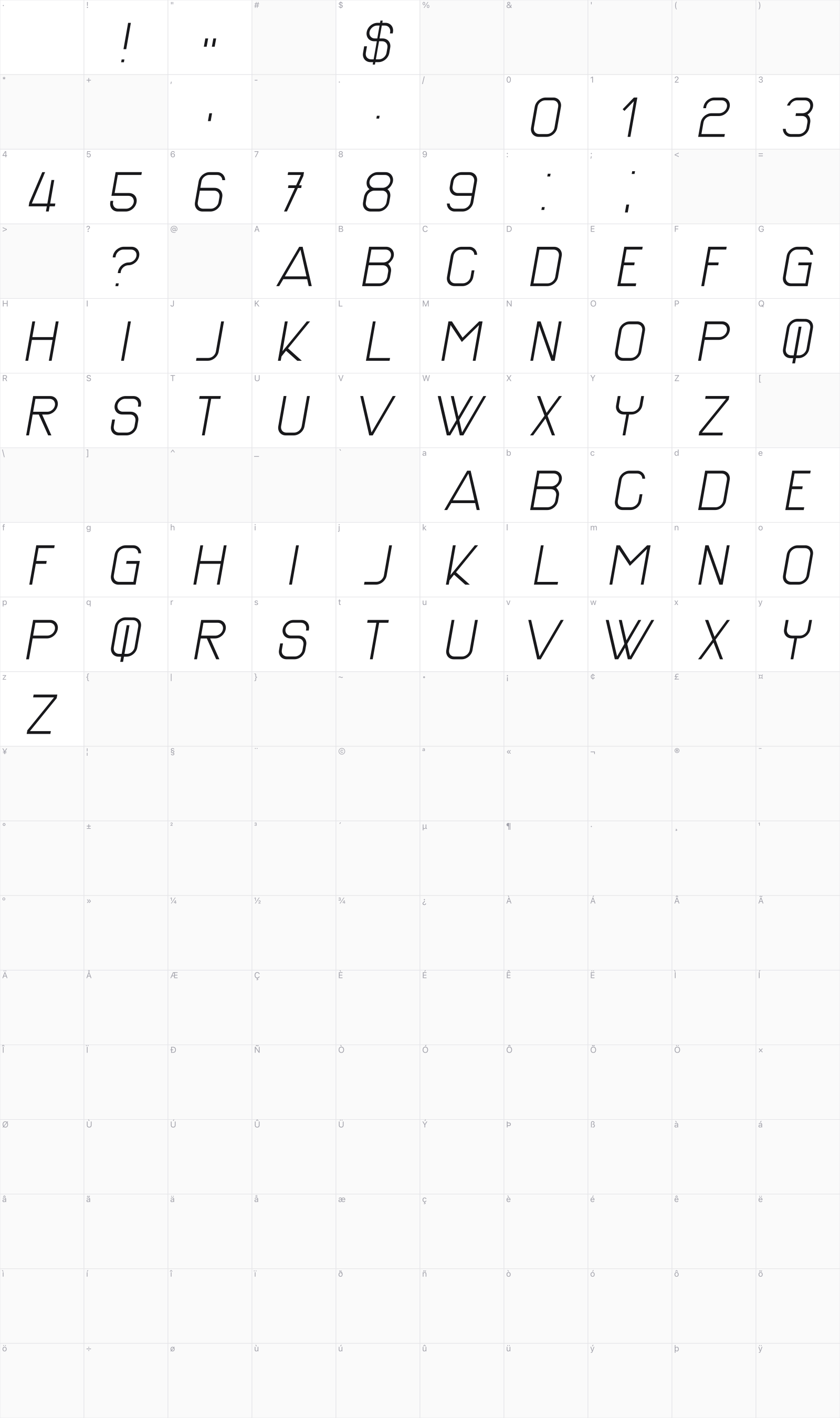
Gigantesque
Gigantesque is a light geometric sans-serif with a clean, spacious italic stance and near-monoweight strokes. The wide letter spacing and open apertures give it a refined, almost clinical elegance that reads confidently at large sizes. It sits comfortably at the intersection of tech precision and high-end editorial.